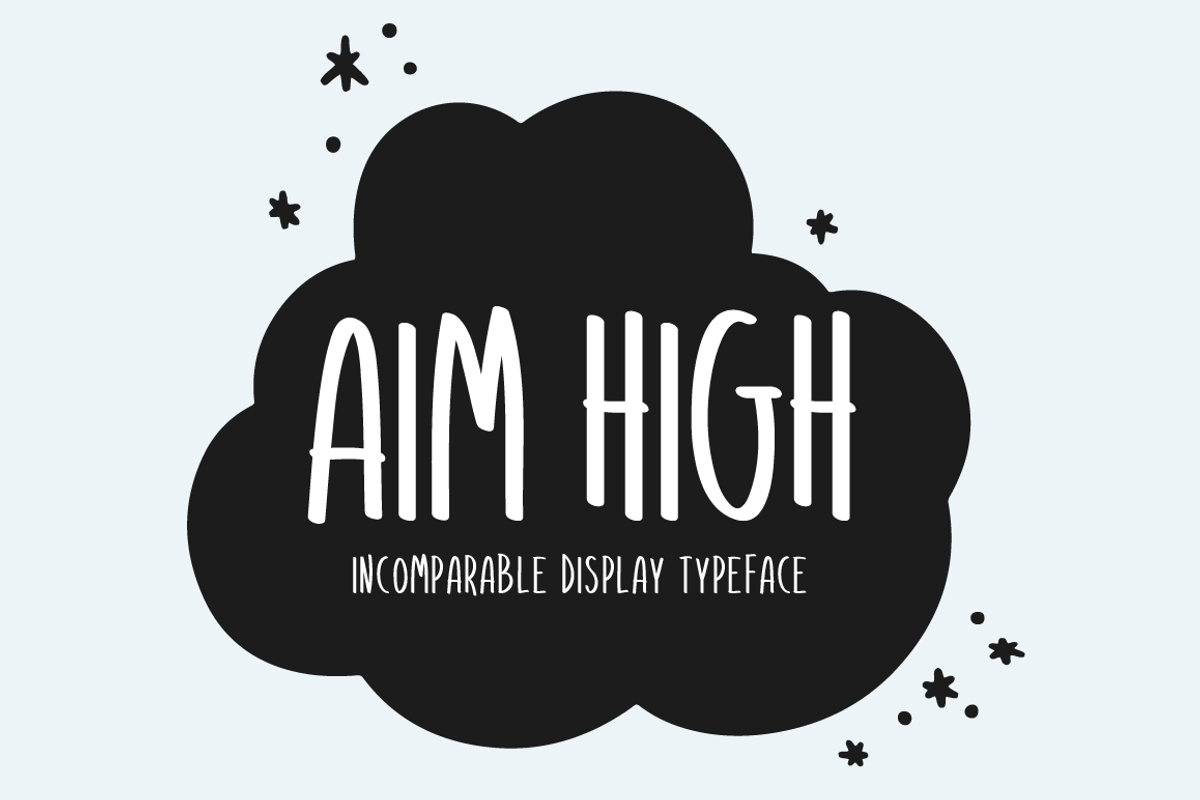
Aim High Typeface Free Download
Please note, you must purchase this font for commercial use. However, you can easily download Aim High Typeface Free Download for personal use and testing purposes. Aim High Typeface is a bold and dynamic typeface designed to make a statement. With its modern, strong letterforms, this font is perfect for projects that require attention-grabbing typography. Ideal for branding, logos, posters, and headlines, Aim High Typeface Free Download offers a clean, professional look that still conveys energy and confidence. Whether you’re designing for a tech brand, an event, or a creative campaign, this font adds strength and clarity to your designs. Download Aim High Typeface Free Download today and explore its potential before opting for a commercial license.